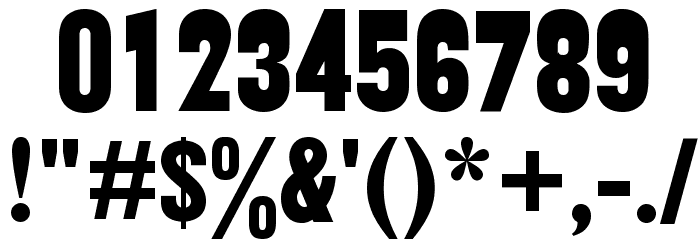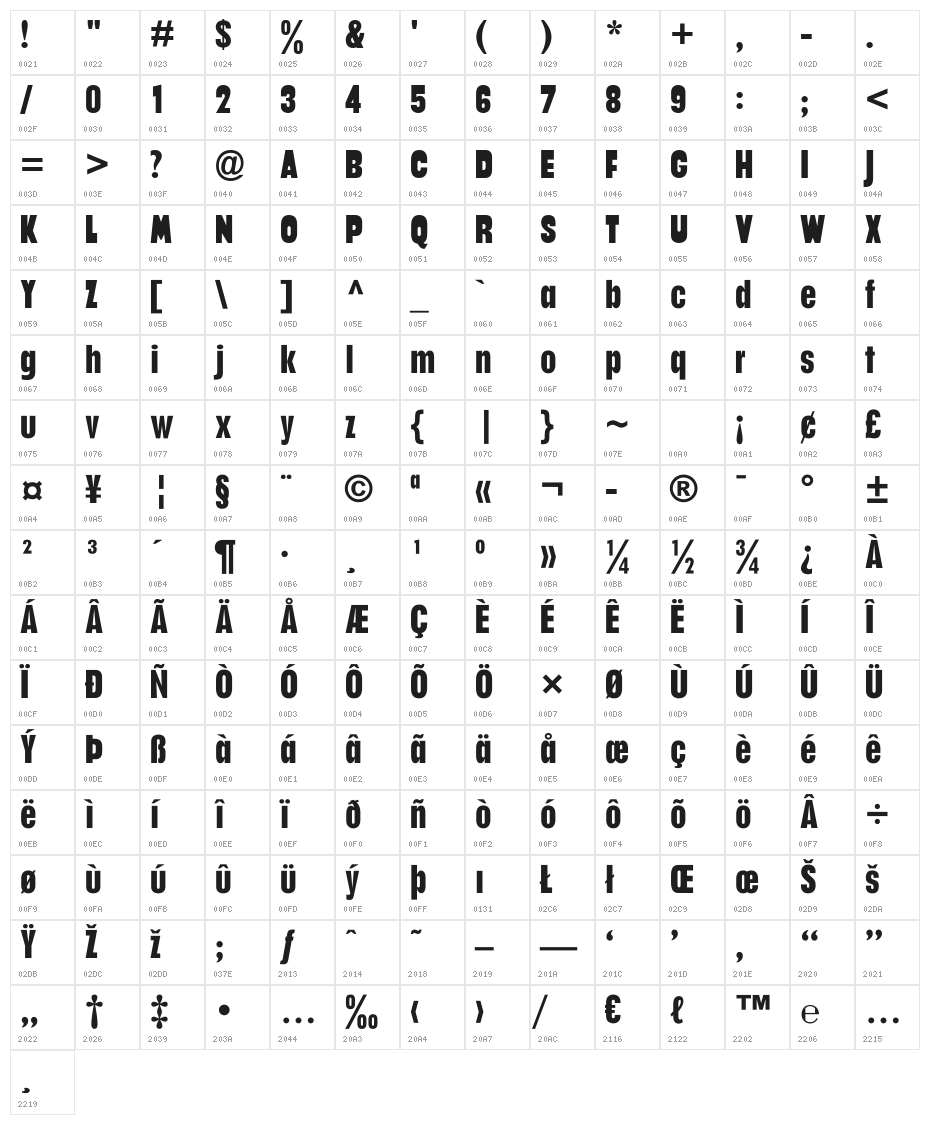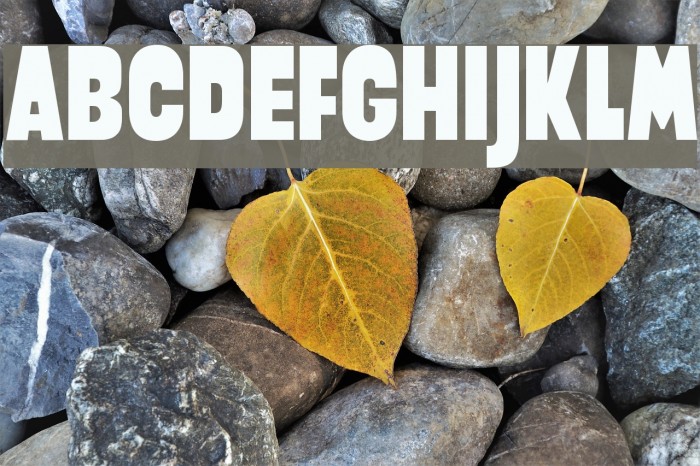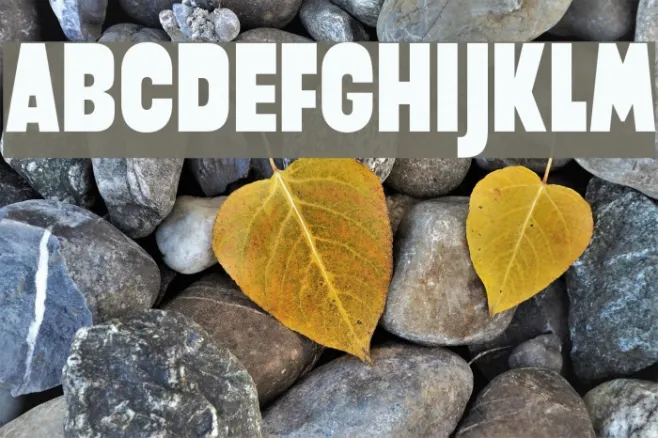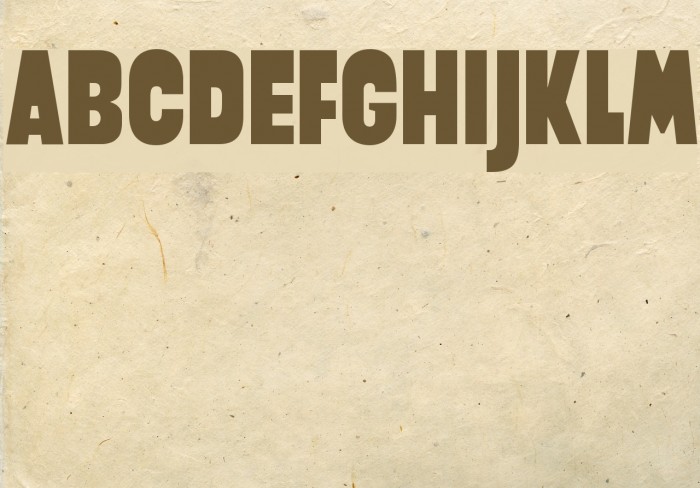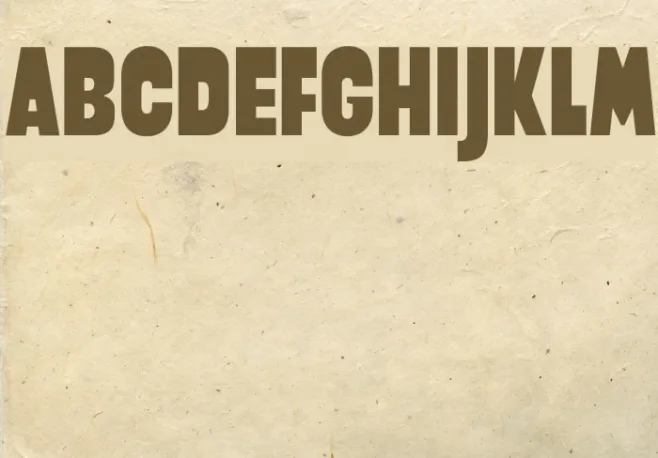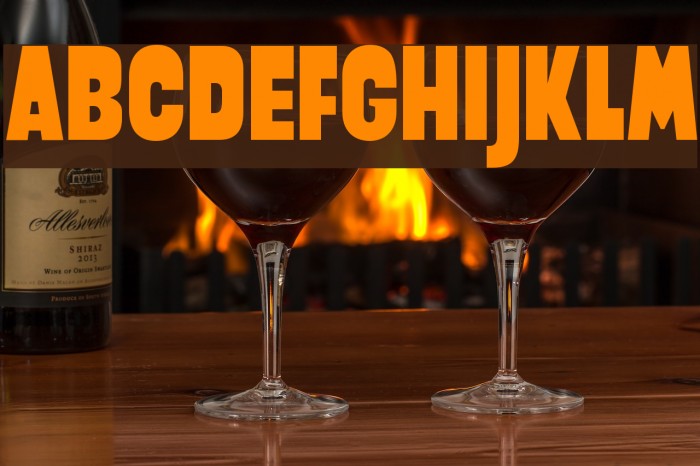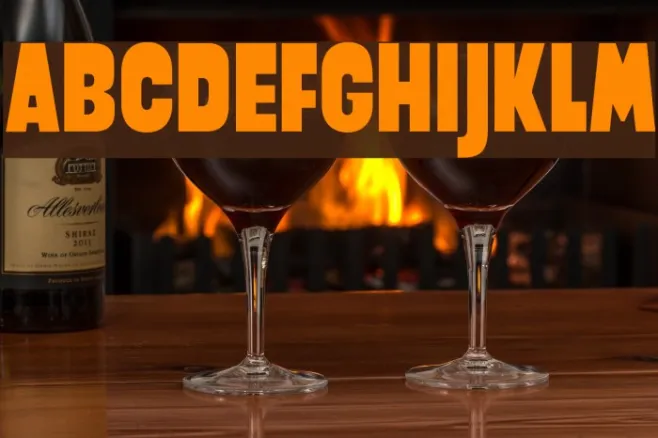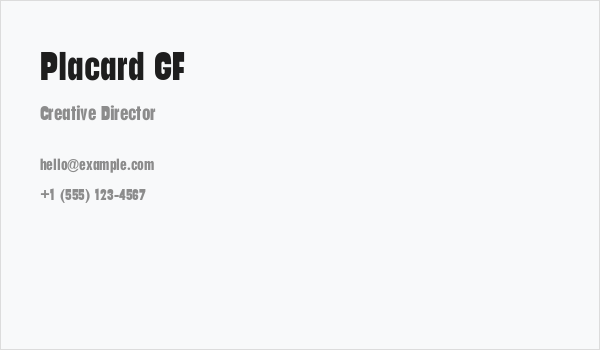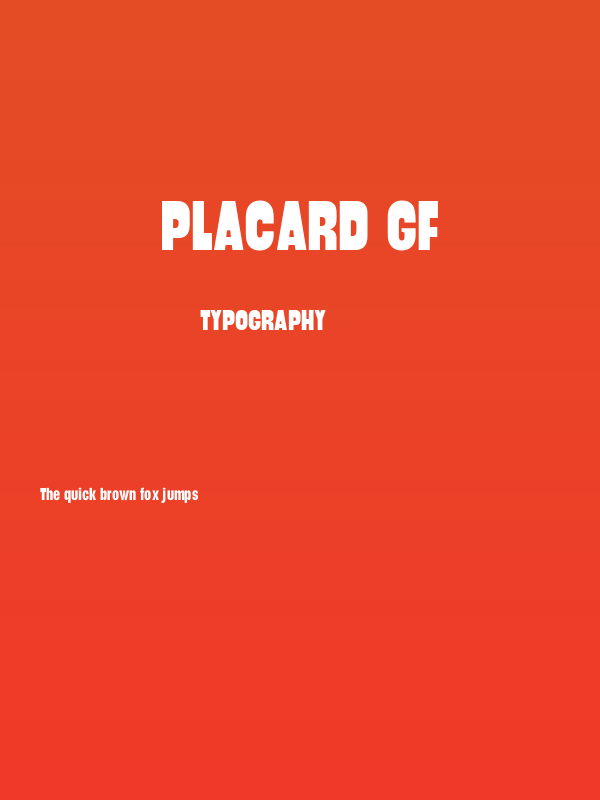
Placard GF Font
Placard GF Description
This bold and impactful font features thick, uniform strokes that create a strong visual presence. The characters are tightly spaced, enhancing its boldness and making it ideal for attention-grabbing headlines. The uppercase and lowercase letters maintain a consistent weight, contributing to its cohesive appearance. The numerals and special characters are equally robust, ensuring legibility and emphasis. Its straightforward design is devoid of any decorative elements, focusing solely on delivering a powerful message through its sheer weight and simplicity.
| Proposed Projects | Ideal for posters, banners, and signage where strong, clear communication is essential. |